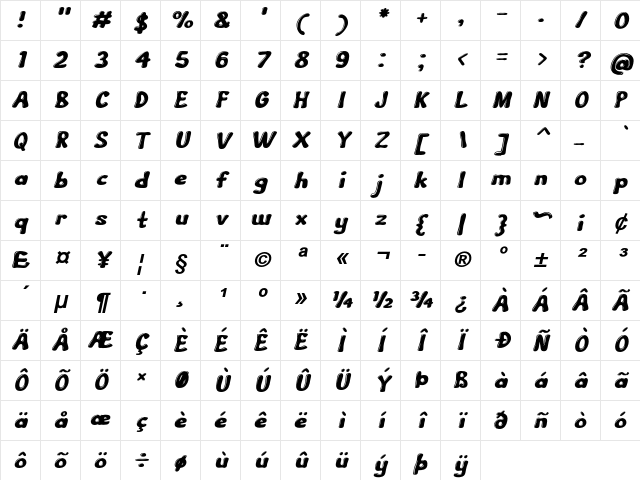
Jigglepop Bold Italic
Design Context for Jigglepop
Jigglepop is a composed and adaptable typeface that performs quietly and consistently across a wide range of design contexts. The slanted form adds forward momentum and visual energy. Its bold stroke weight gives it real presence on the page.
Pro Tip: Use Jigglepop for emphasis, pull quotes, and subheadings where its slanted energy can add rhythm to the layout.